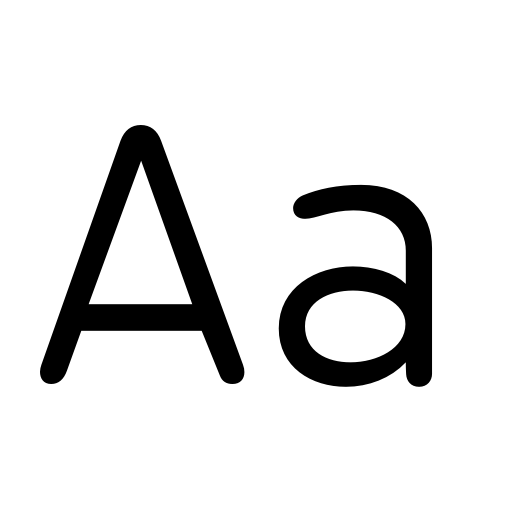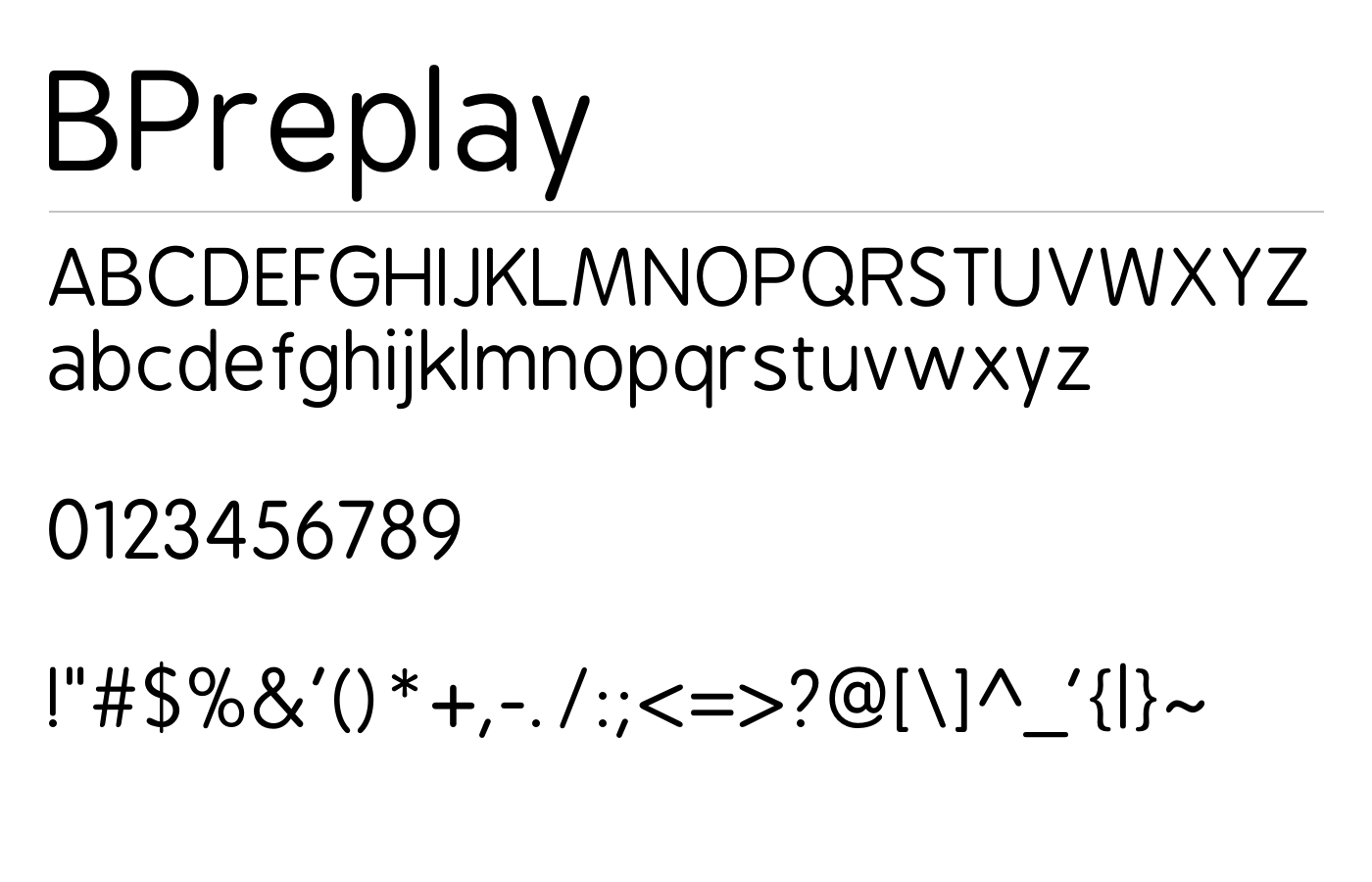
BPreplay is a clean and modern sans serif font with a friendly and approachable feel, featuring a light weight and balanced proportions. Its slightly rounded terminals and open counters make it highly legible, ideal for digital interfaces, branding, and editorial design where clarity and simplicity are key. This font’s versatility and contemporary style make it perfect for both headlines and body text in a wide range of professional and casual contexts.
BPreplay Font
About BPreplay Font
| Font family | BPreplay Font |
| Designer | Magenta/George Triantafyllakos |